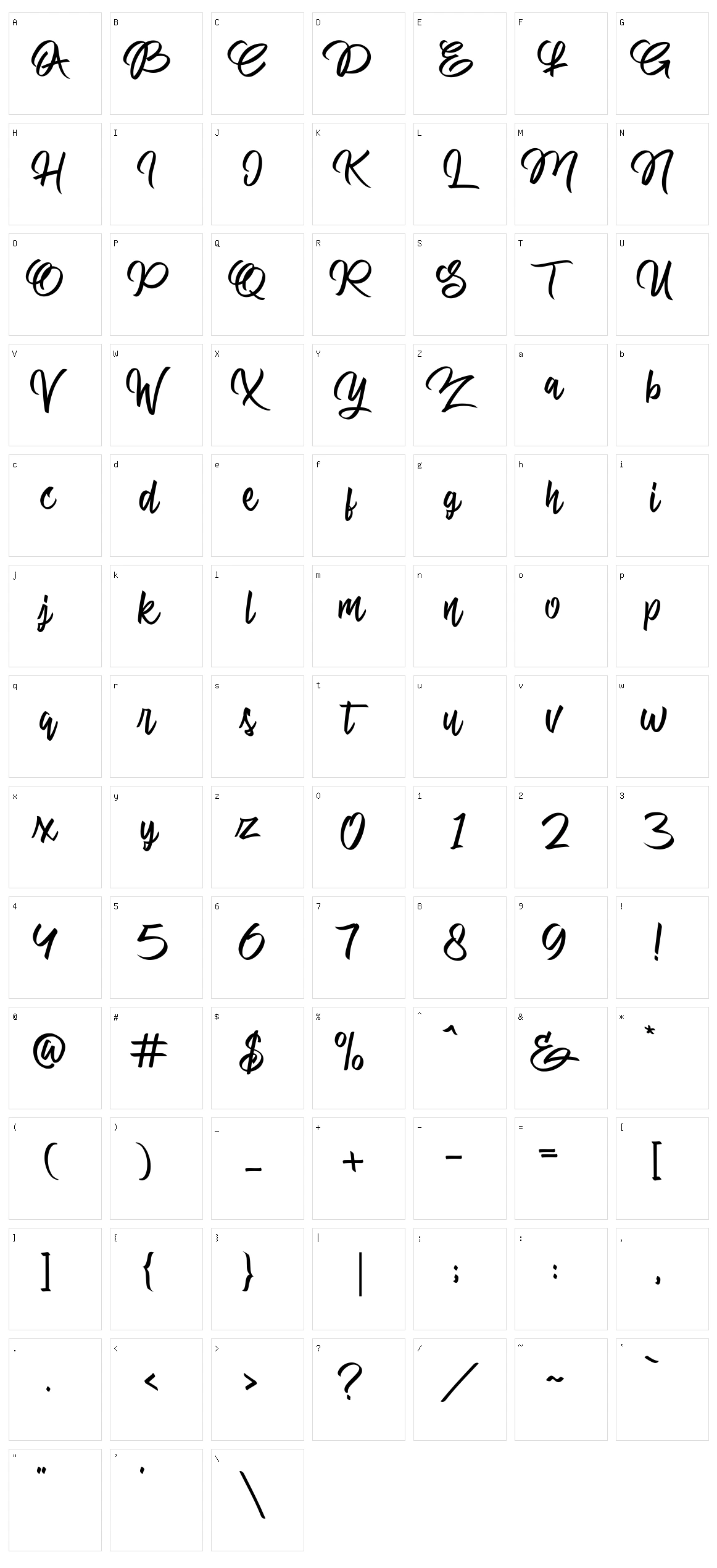
The free font Eniceplay is carefully designed by Kong Font, showcasing a thoughtful balance of creativity and usability and falls under the Script font style. When you download the ZIP file, it contains only 453.41 KB of font files, making it lightweight and quick to download. Please review the license details below to understand permitted usage and distribution rights. If license information is not available, we recommend using this font for personal projects only or contacting the author directly for commercial usage permissions.